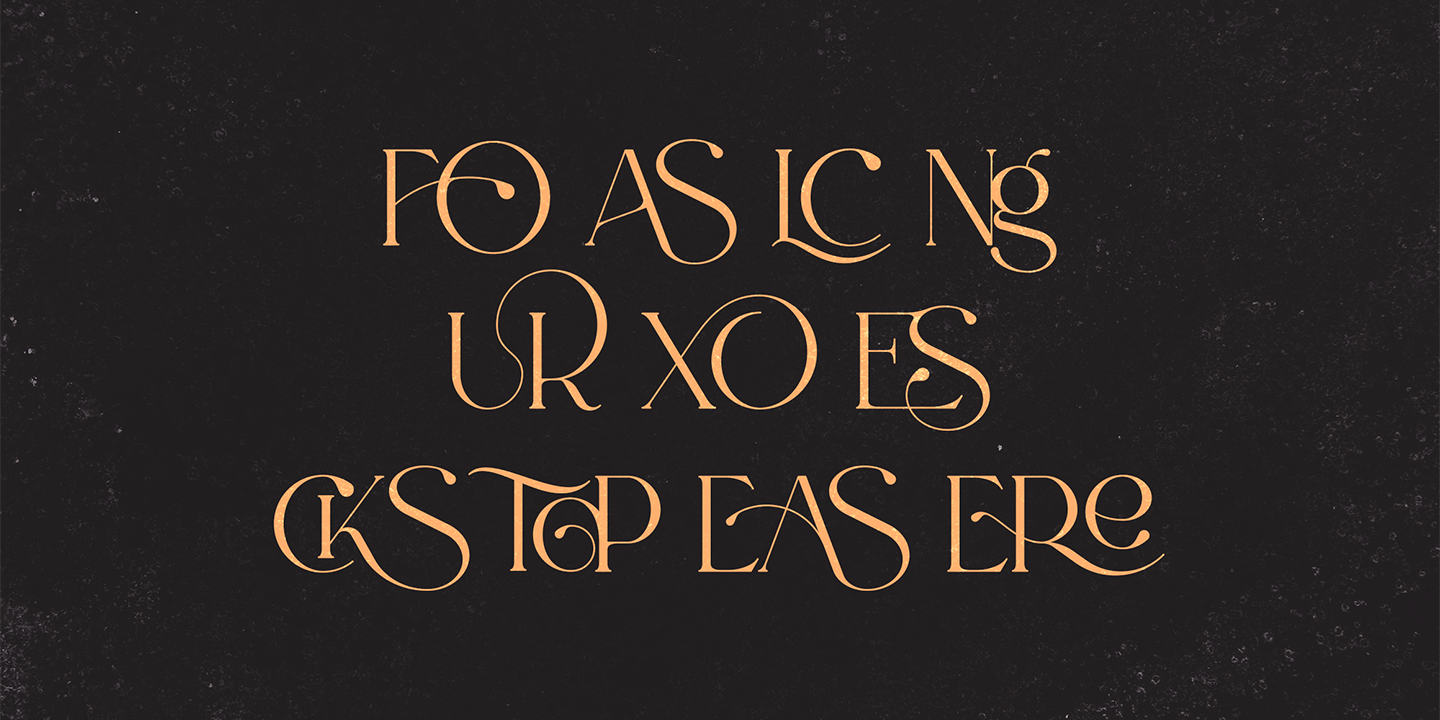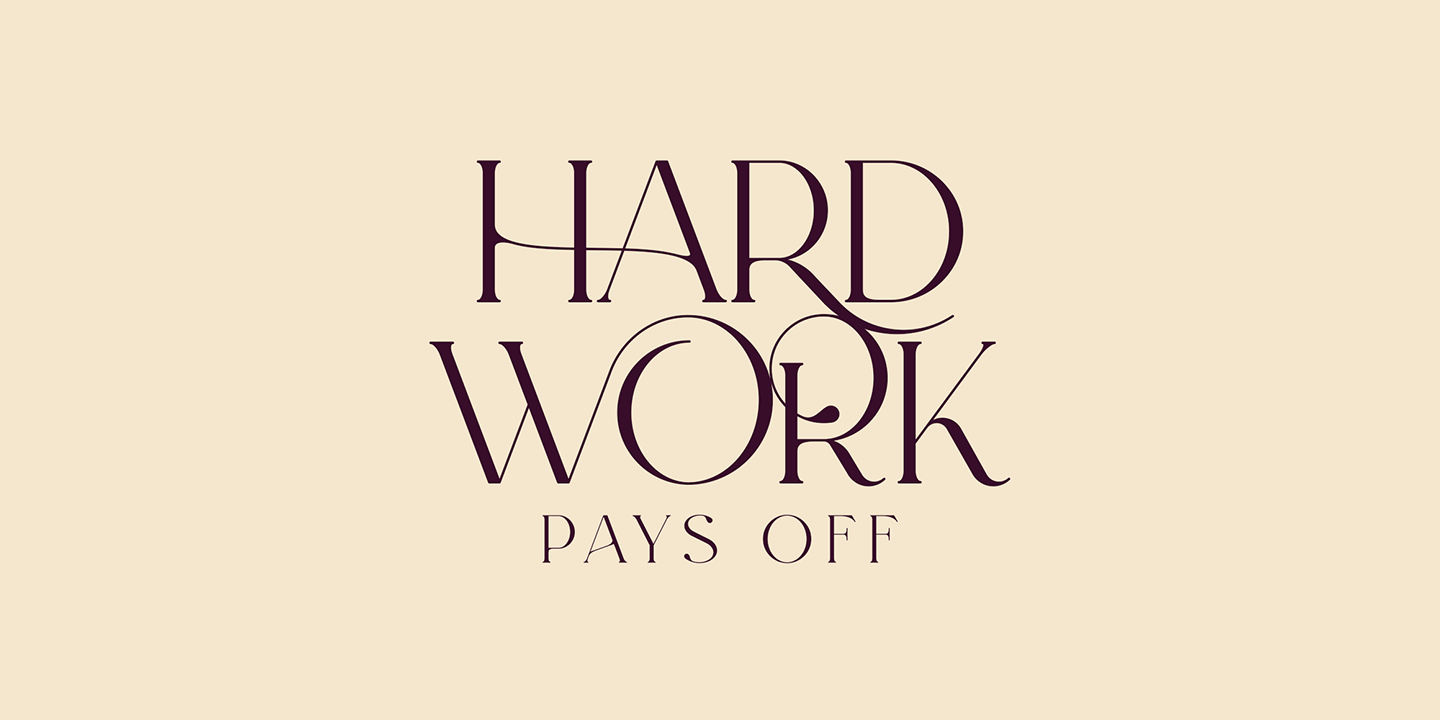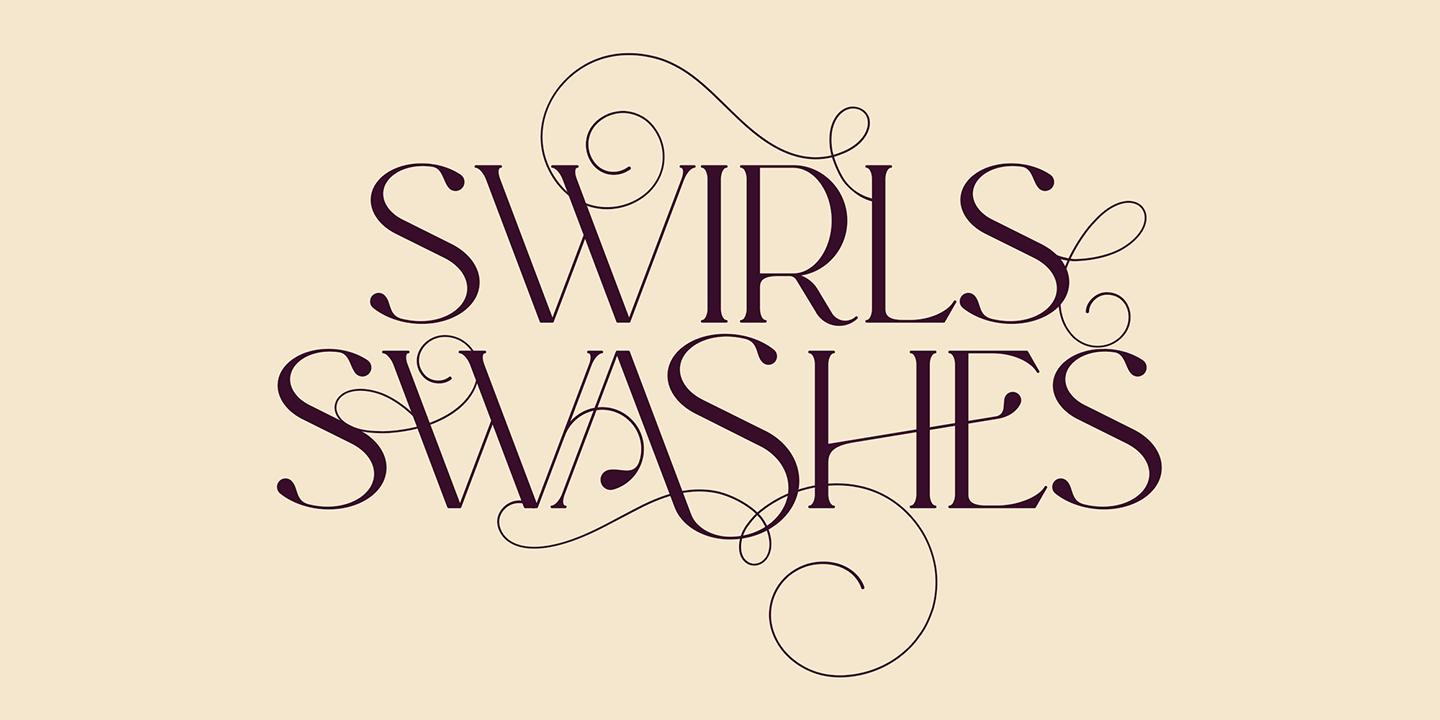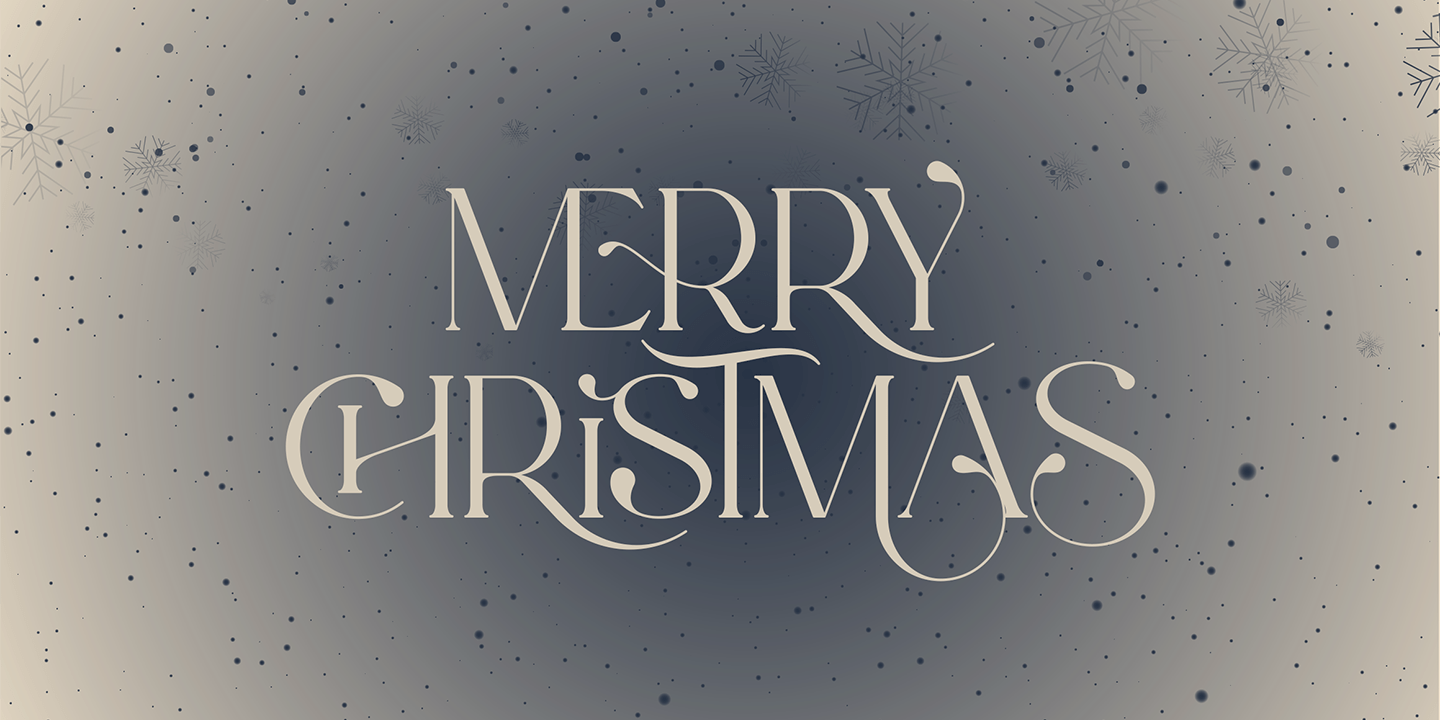
About Enchanted Tales
"Enchanted Tales" is a captivating serif font that offers a blend of classic elegance and modern versatility, making it an ideal choice for a wide range of creative projects. This font boasts an impressive support for 87 languages, ensuring…